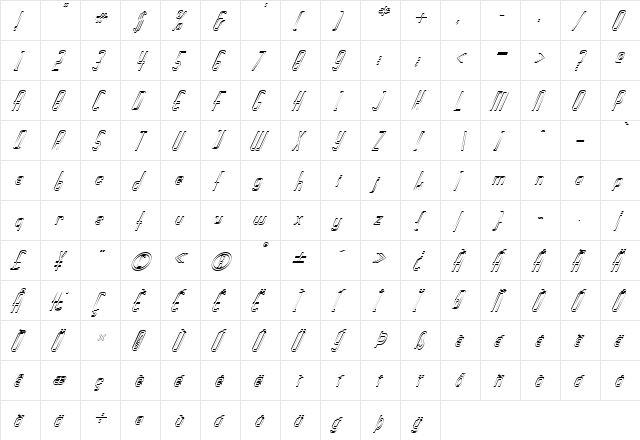
Design Context for FZ BASIC 44 HOLLOW ITALIC Typeface
FZ BASIC 44 HOLLOW ITALIC is a composed and adaptable typeface that performs quietly and consistently across a wide range of design contexts. The slanted form adds forward momentum and visual energy. The heavy weight commands attention and anchors typographic hierarchies.